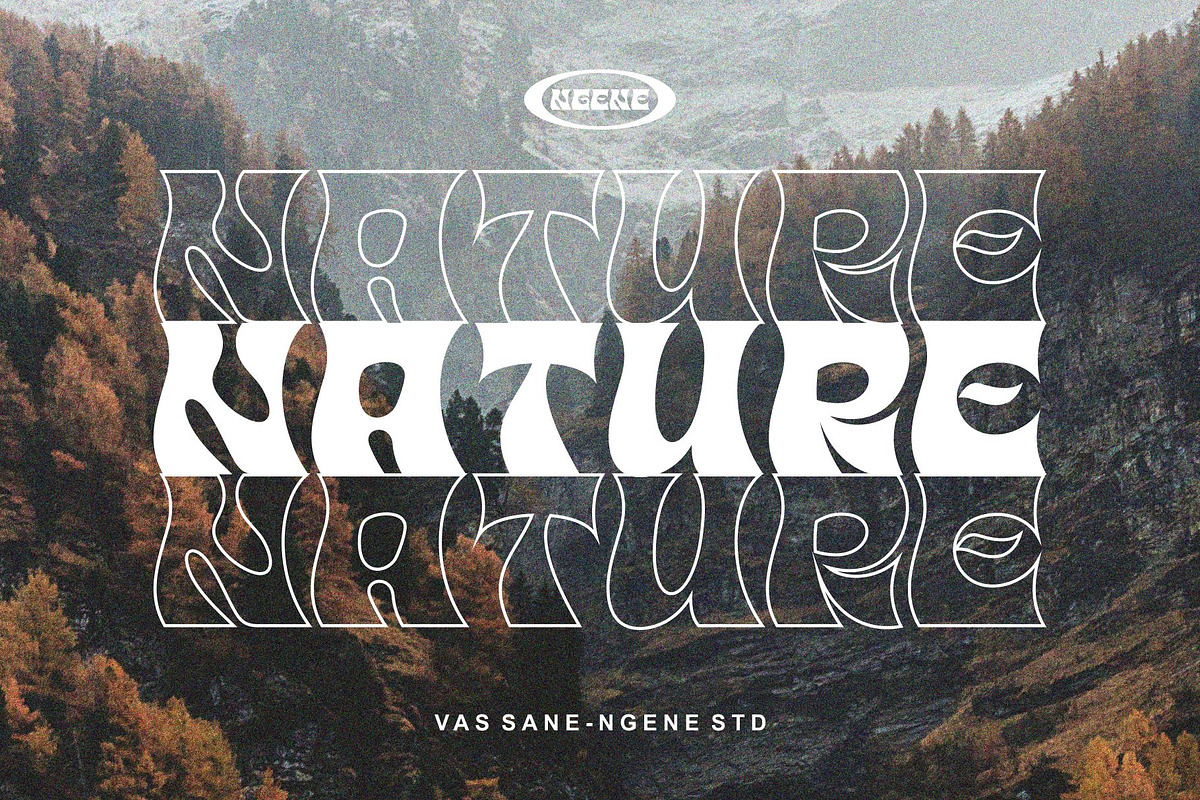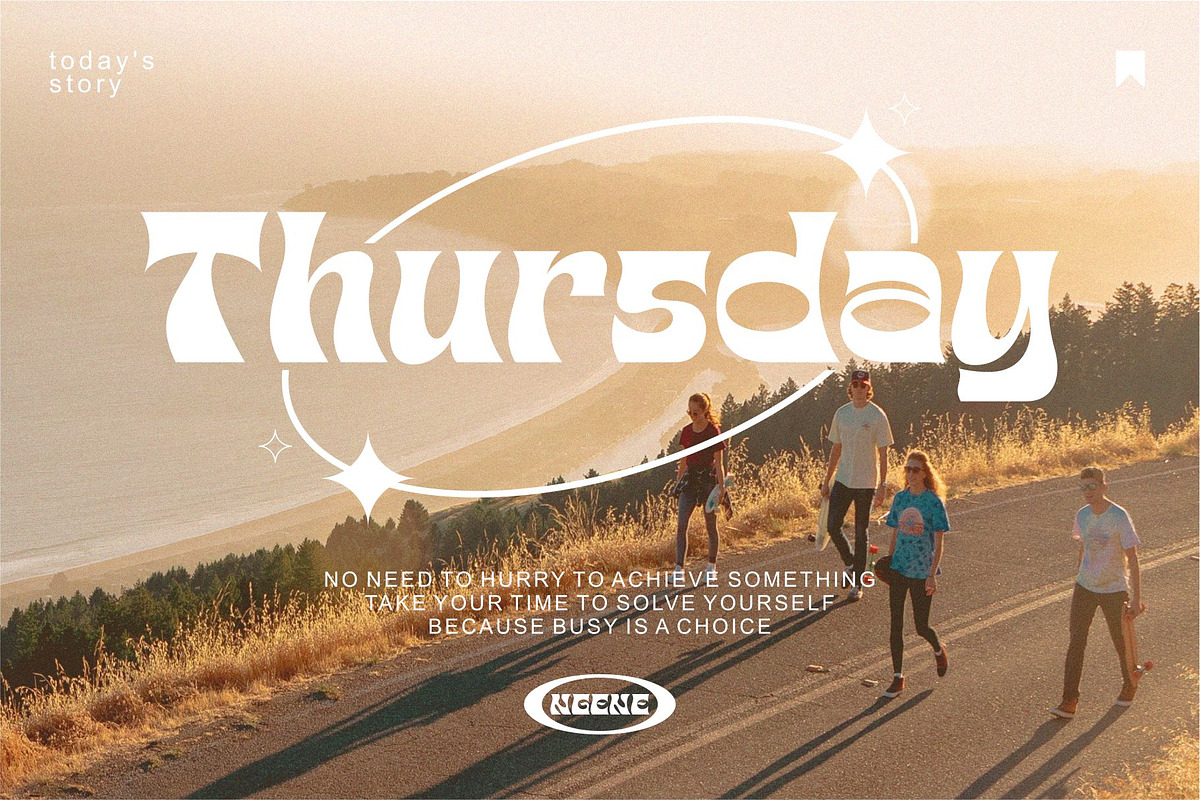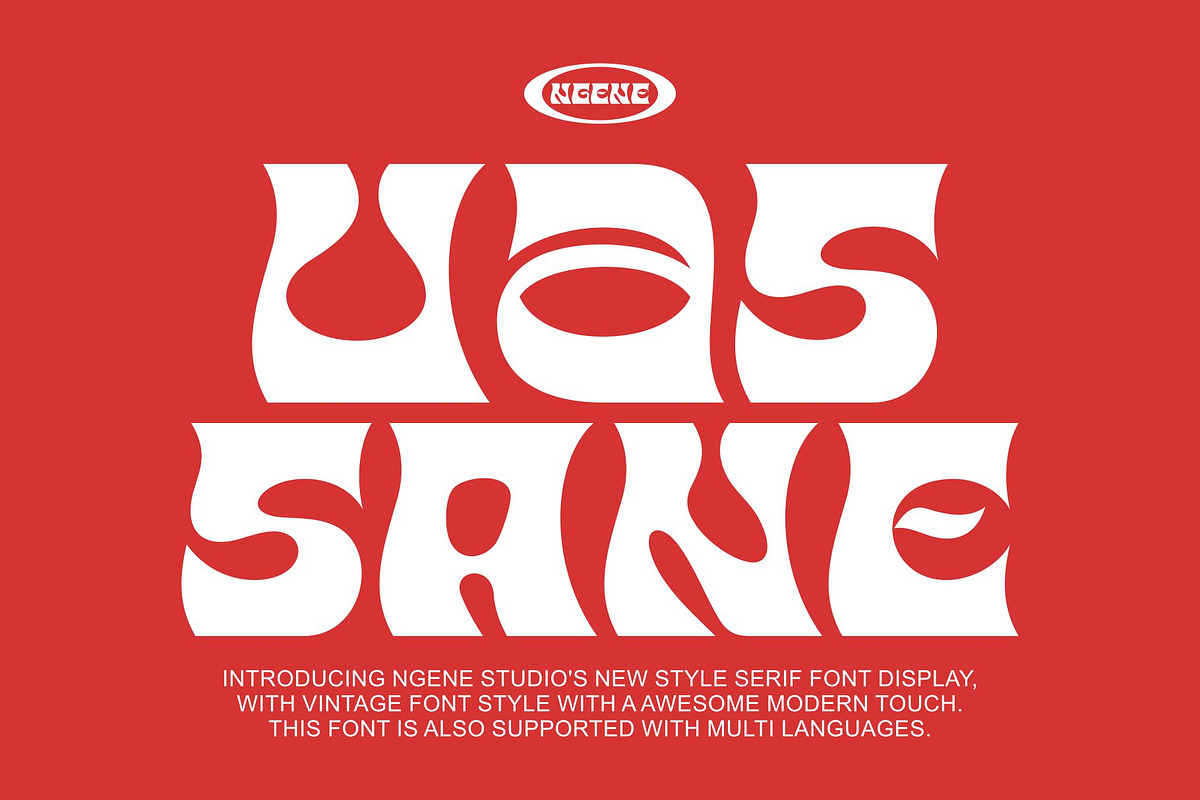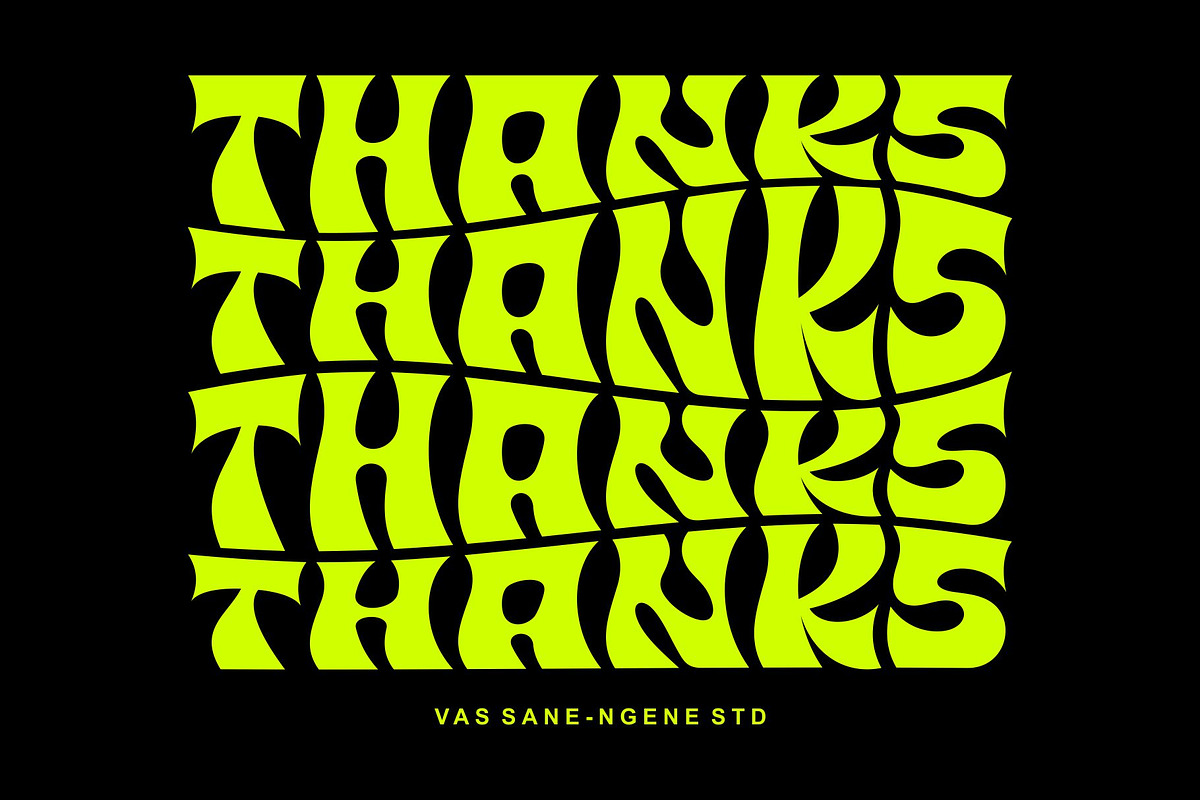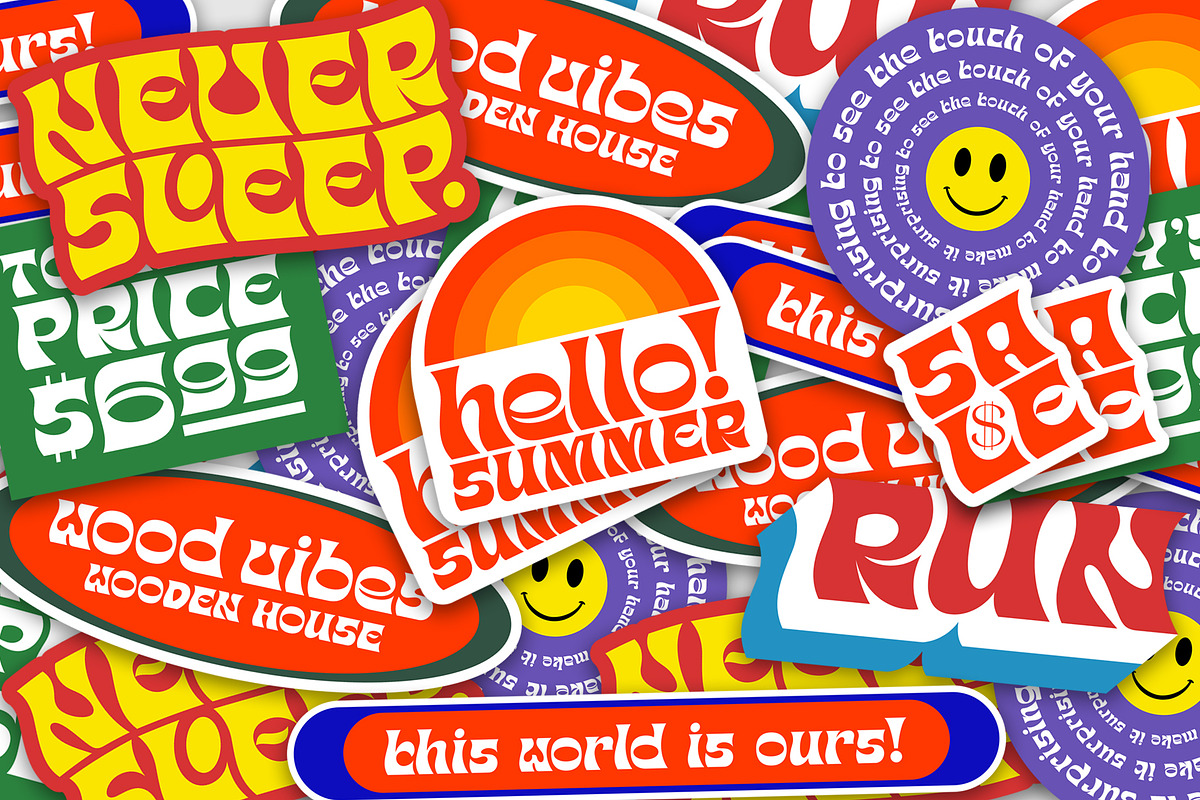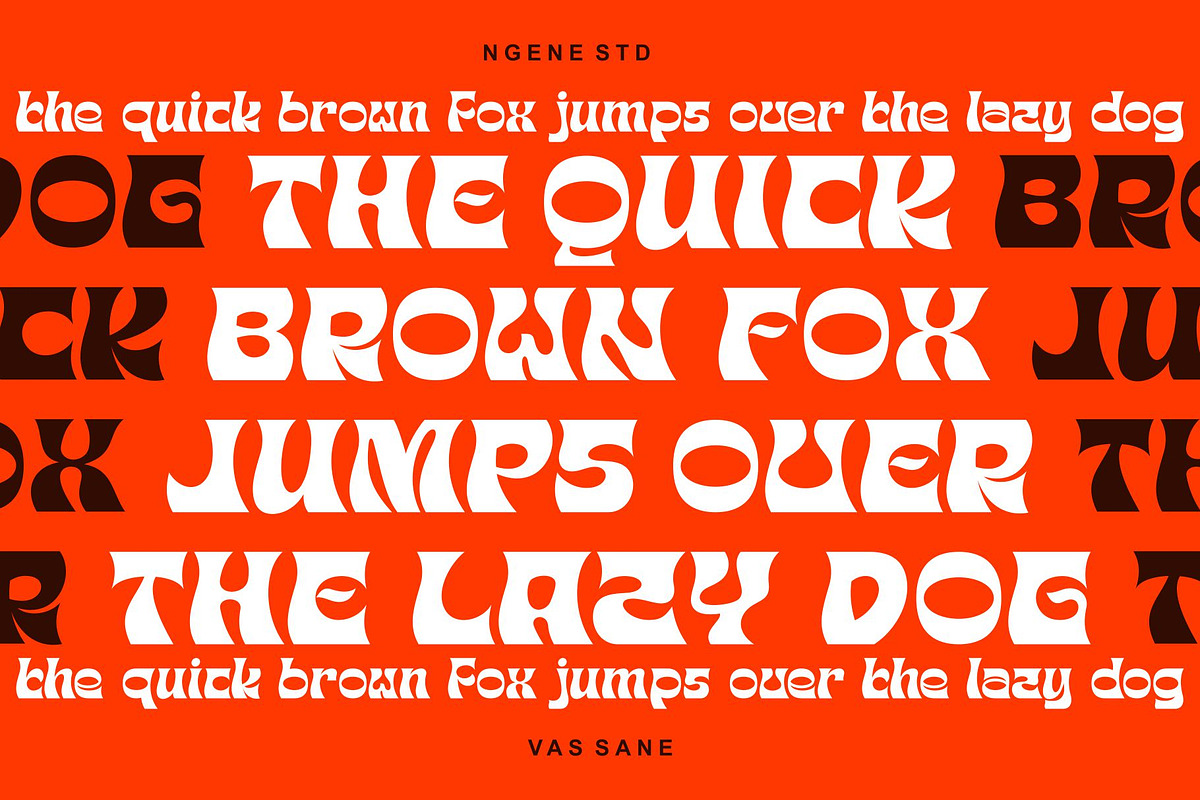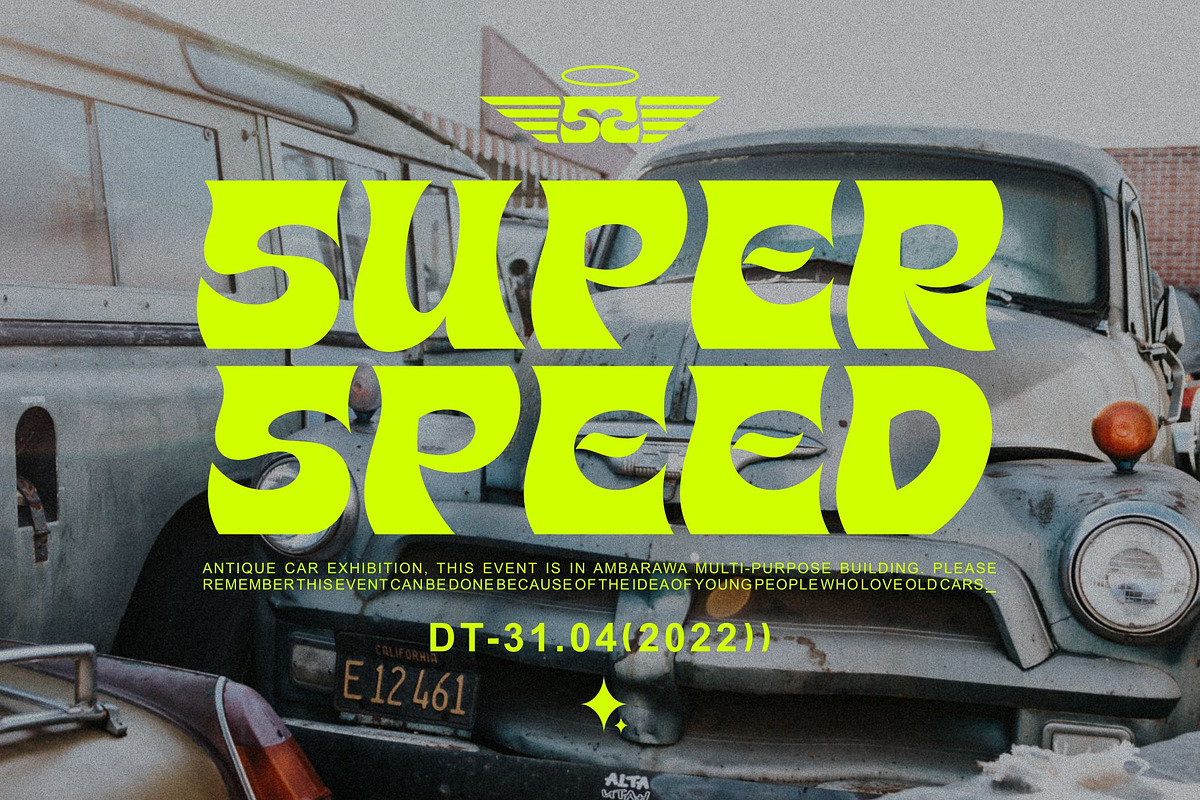
VAS SANE
INTRODUCING
This VAS SANE comes with a modern and contemporary touch in it. This font is great for your design projects such as logos, magazines, web design, posters, invitation cards, packaging, badges, types of logos, clothing designs, labels and more.
This font is so cool that it makes it easy for you to beautify the writing you need. Vas Sane also supports multilingualism.